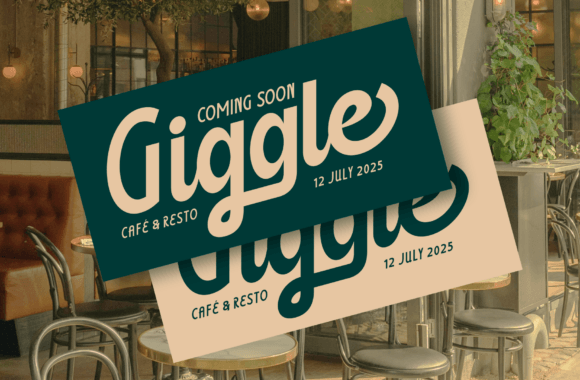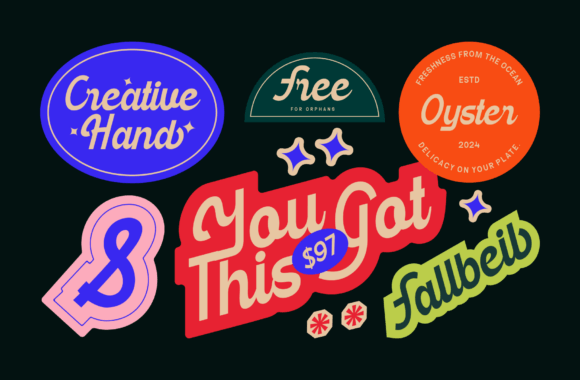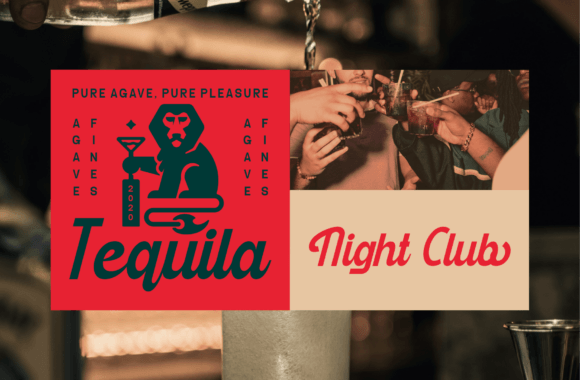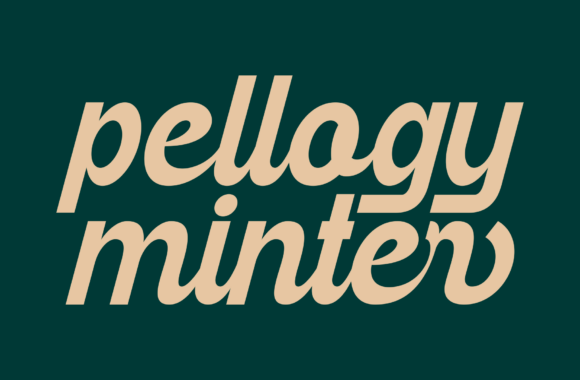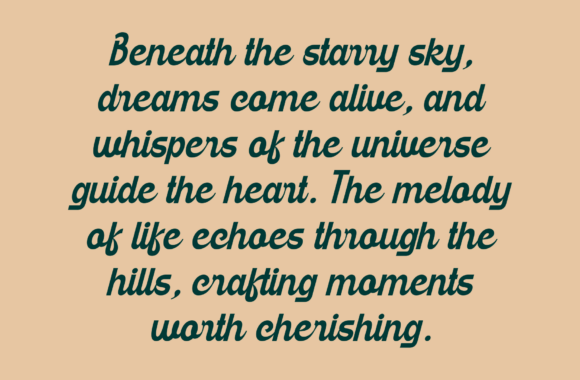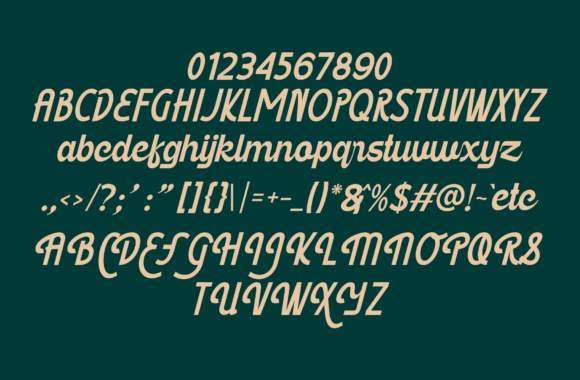
Introduction to Fallbeil Font
Imagine you’re brainstorming a new logo design for a client, and you’re struggling to find the perfect font to capture their brand’s essence. The cursor blinks, and you’re stuck, until you stumble upon the perfect match – the Fallbeil Font. Its modern script style exudes strength and elegance, making it an ideal choice for designers seeking to create a lasting impression.
With its unique characters and bold design, the Fallbeil Font is a game-changer for designers. Whether you’re working on a professional branding project or a creative endeavor, this high-quality font is sure to deliver a distinct visual impact that resonates across different mediums. And the best part? It’s available for free download, making it an invaluable design resource for anyone looking to elevate their projects.
What sets the Fallbeil Font apart is its ability to adapt to various applications, from logos and typography to posters and apparel designs. Its versatility, combined with its sophisticated look, makes it an essential tool for designers seeking to create stunning visuals with a transparent background, perfect for any creative project.
Key Features of Fallbeil Font
- High-quality font designed for creative projects, offering a unique and distinctive look.
- Comes in a single size, making it easy to use in various design contexts.
- Perfect for designers and artists looking to add a touch of elegance and sophistication to their creative projects.
Honest Review: Fallbeil Font
As a designer, I’m always on the lookout for unique and high-quality fonts to elevate my creative projects. The Fallbeil Font caught my eye with its striking and modern design, making it a great addition to any design resource.
Here are some things that work well with the Fallbeil Font:
- ✨ High-quality design: The font’s modern and sleek design makes it perfect for creative projects that require a touch of sophistication.
- ✨ Versatile: The Fallbeil Font can be used for a variety of projects, from logos to brochures, and even web design.
- ⚠️ Limited language support: The font only supports a few languages, which might be a concern for designers who need to work with multiple languages.
- ⚠️ Not ideal for transparent backgrounds: The font’s design doesn’t lend itself well to transparent backgrounds, which might be a problem for designers who need to use it with images or videos.
Overall, I’m impressed with the Fallbeil Font’s design and versatility. While it has some limitations, it’s still a great addition to any design resource, especially for designers who want a high-quality font without breaking the bank.
The Fallbeil Font is a high-quality, free download design resource ideal for creative projects. With its unique style and transparent background, it’s perfect for adding a touch of elegance to your designs.
Experiment with different font sizes, colors, and styles to achieve the desired effect. You can also combine the Fallbeil Font with other design elements to create a unique and eye-catching design.
The Fallbeil Font is ideal for creative projects such as logo design, branding, and typography-based art. Its transparent background makes it perfect for overlaying on images or other design elements.